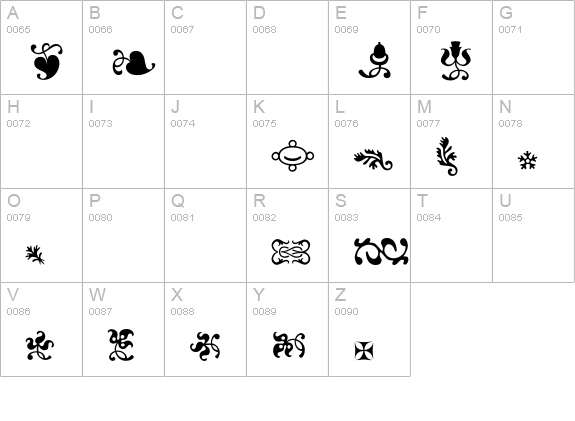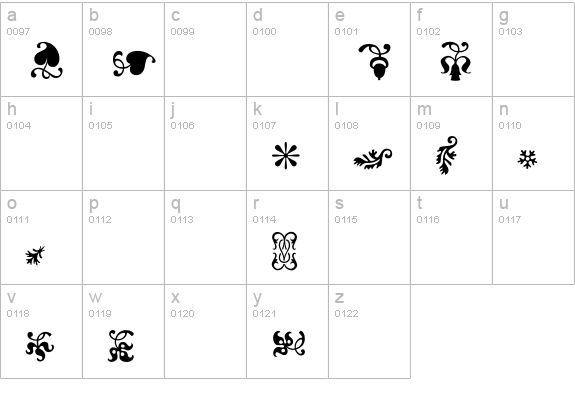
Ornabo Font Details
Ornabo font is a stunning and versatile typeface that exudes elegance and sophistication. With its intricate details and stylish curves, Ornabo adds a touch of timeless charm to any design project. This unique font is perfect for creating eye-catching headlines, logos, invitations, and more. The best part? Ornabo font is completely free to download at FontsMarket.com! This means you can easily access this beautiful typeface and use it in your creative endeavors without any cost. Don't miss out on the opportunity to enhance your designs with the exquisite Ornabo font – download it today and let your creativity soar!